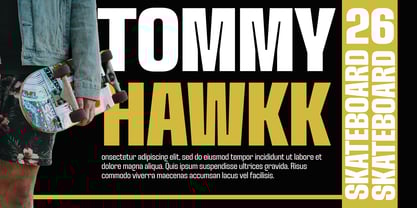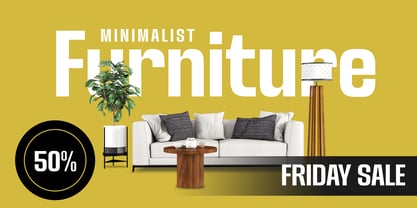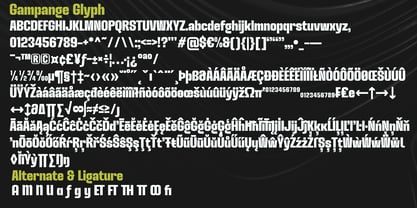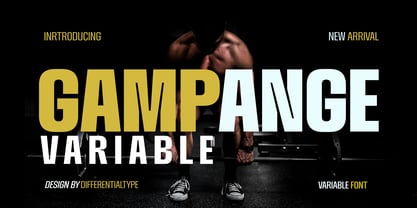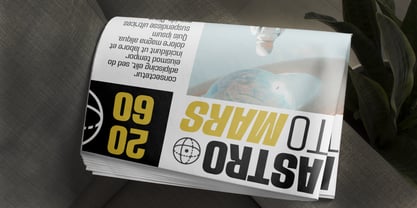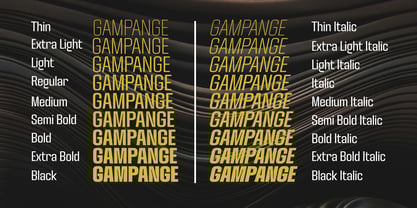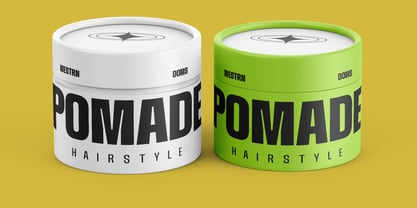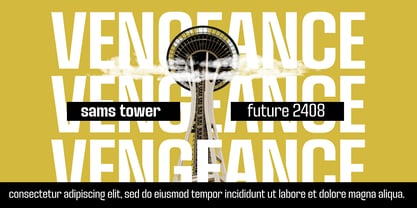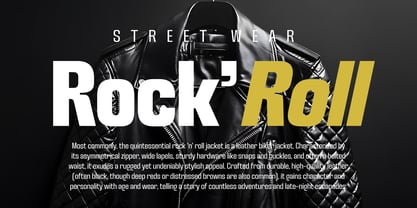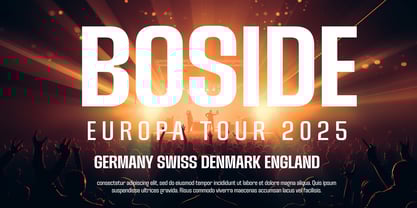
Gampange Variable
by Differentialtype
The Gampange Variable Font Family was designed by Sidik Sidik and published by Differentialtype. Gampange Variable contains 1 styles. More about this family
Explore Gampange Variable, a modern sans-serif variable designed for maximum visual impact! With a bold and sporty appearance, Gampange Variable exudes an aura of strength and dynamism, perfect for projects that demand a modern touch. From Thin to Black, this font offers a comprehensive styles, including captivating italic versions, giving you endless flexibility for every design need.
Gampange Variable is a versatile choice that will make your designs stand out. Ideal for displays, posters, product branding, logos, and even striking text typesetting, this font adapts to various applications with ease. Infuse energy and style into your projects with Gampange Variable, the font ready to take your designs to the next level!
Designers: Sidik Sidik
Foundry: Differentialtype